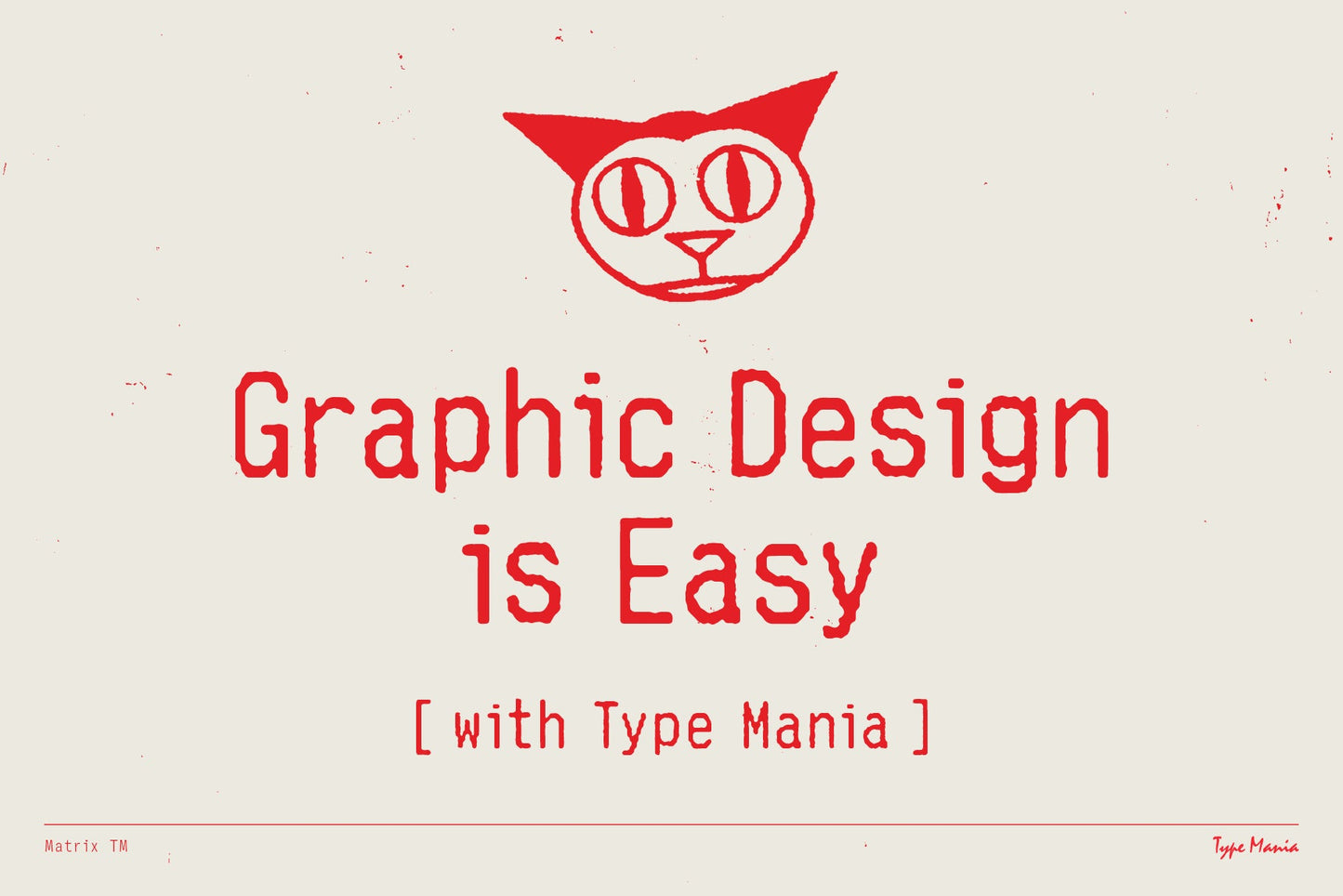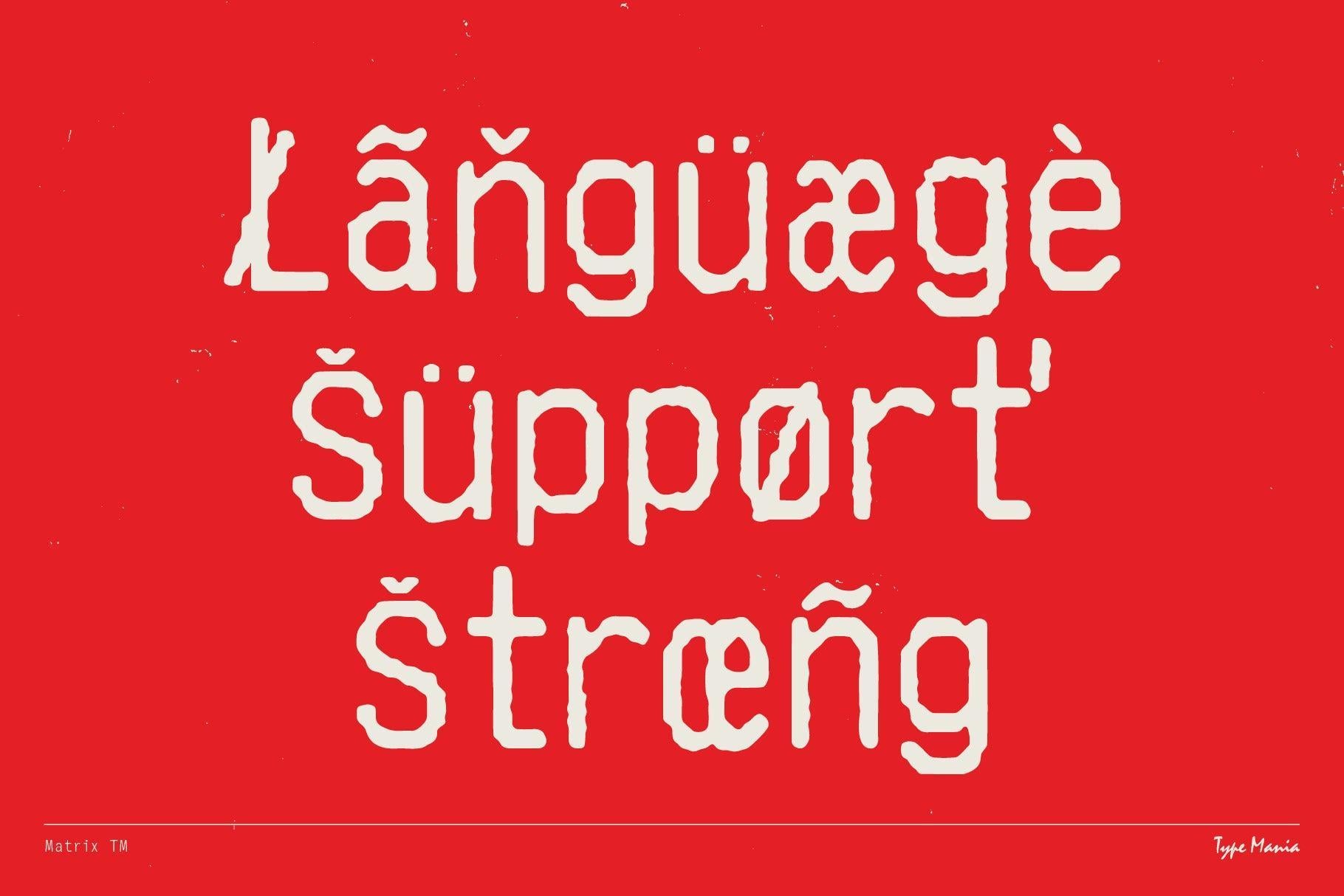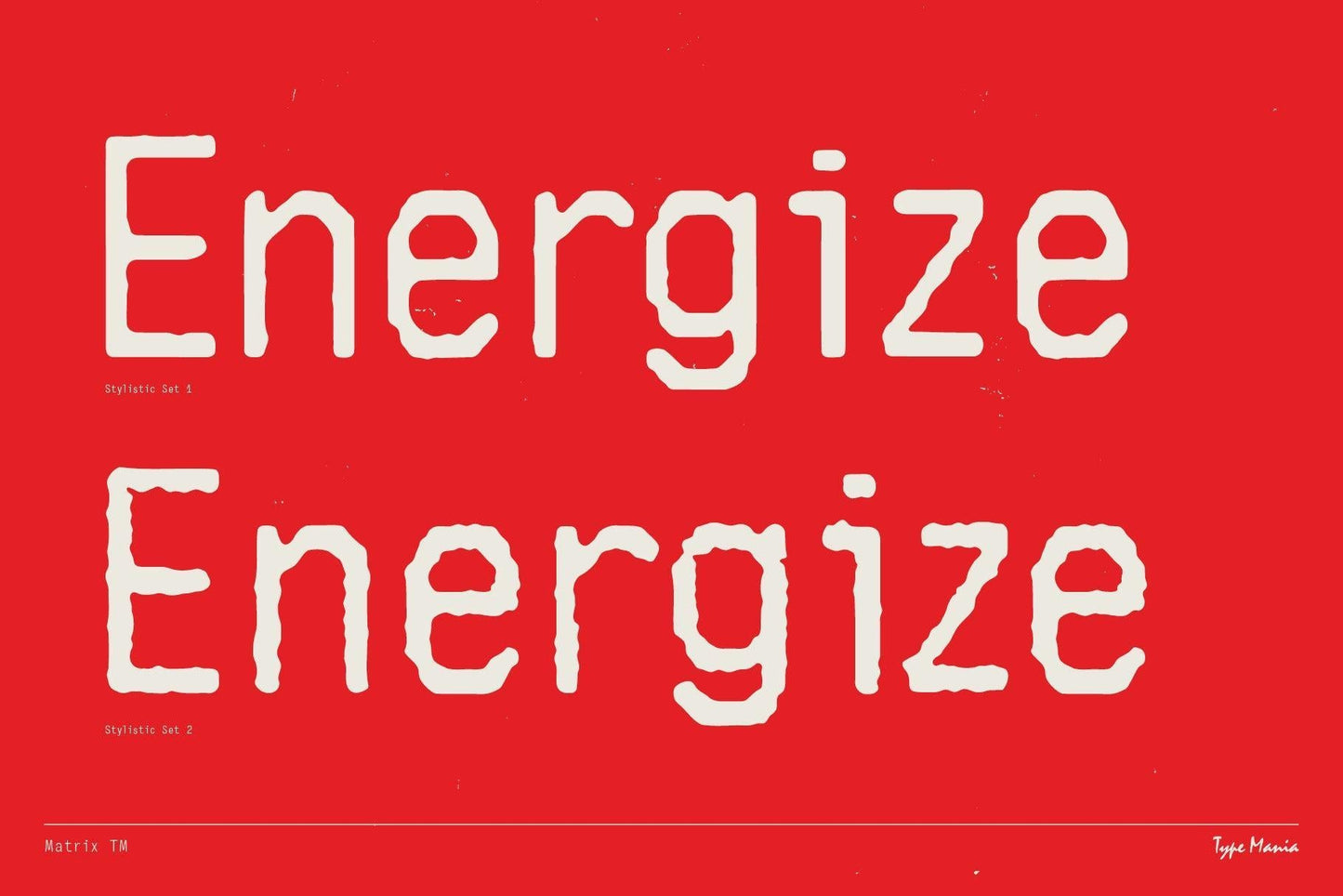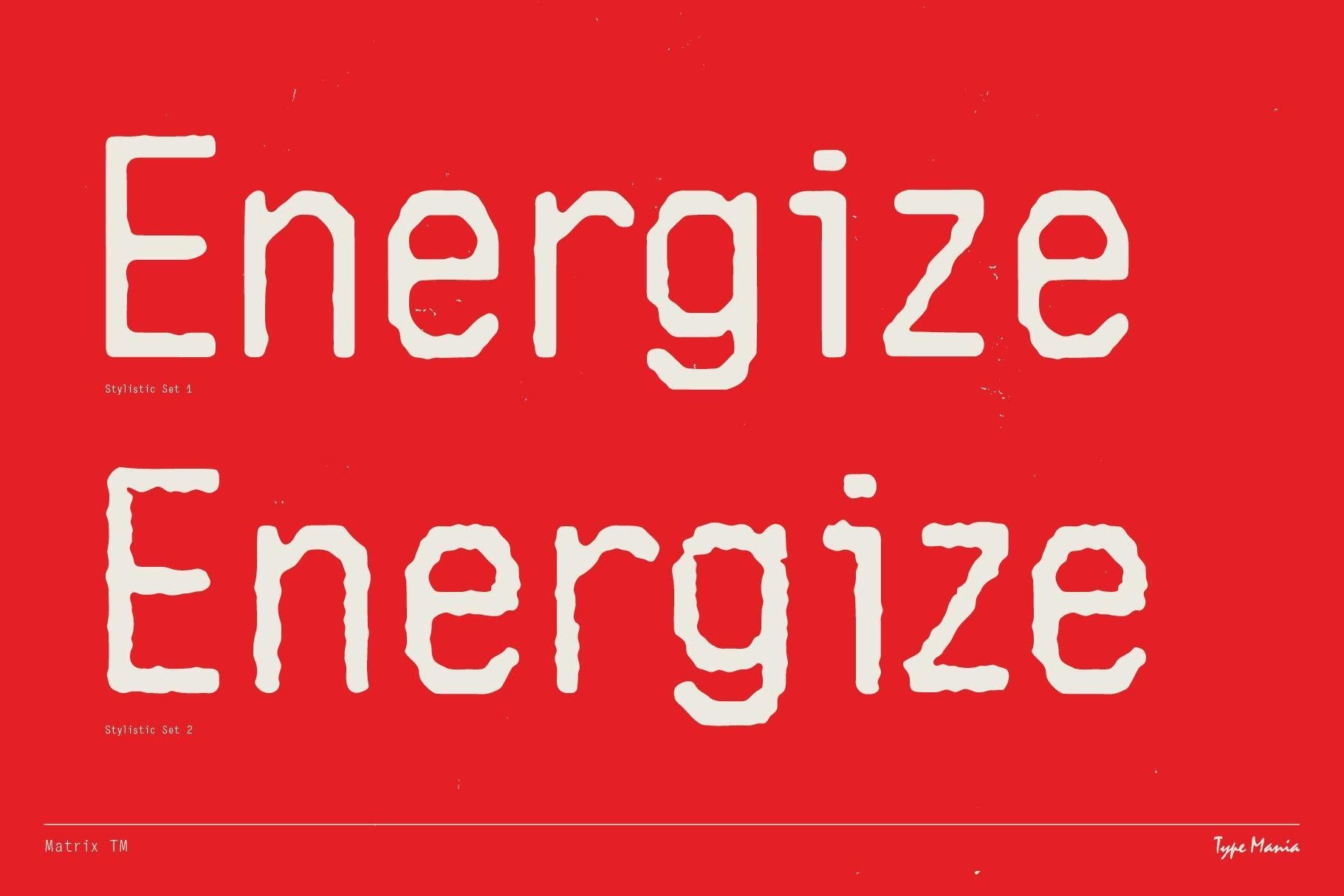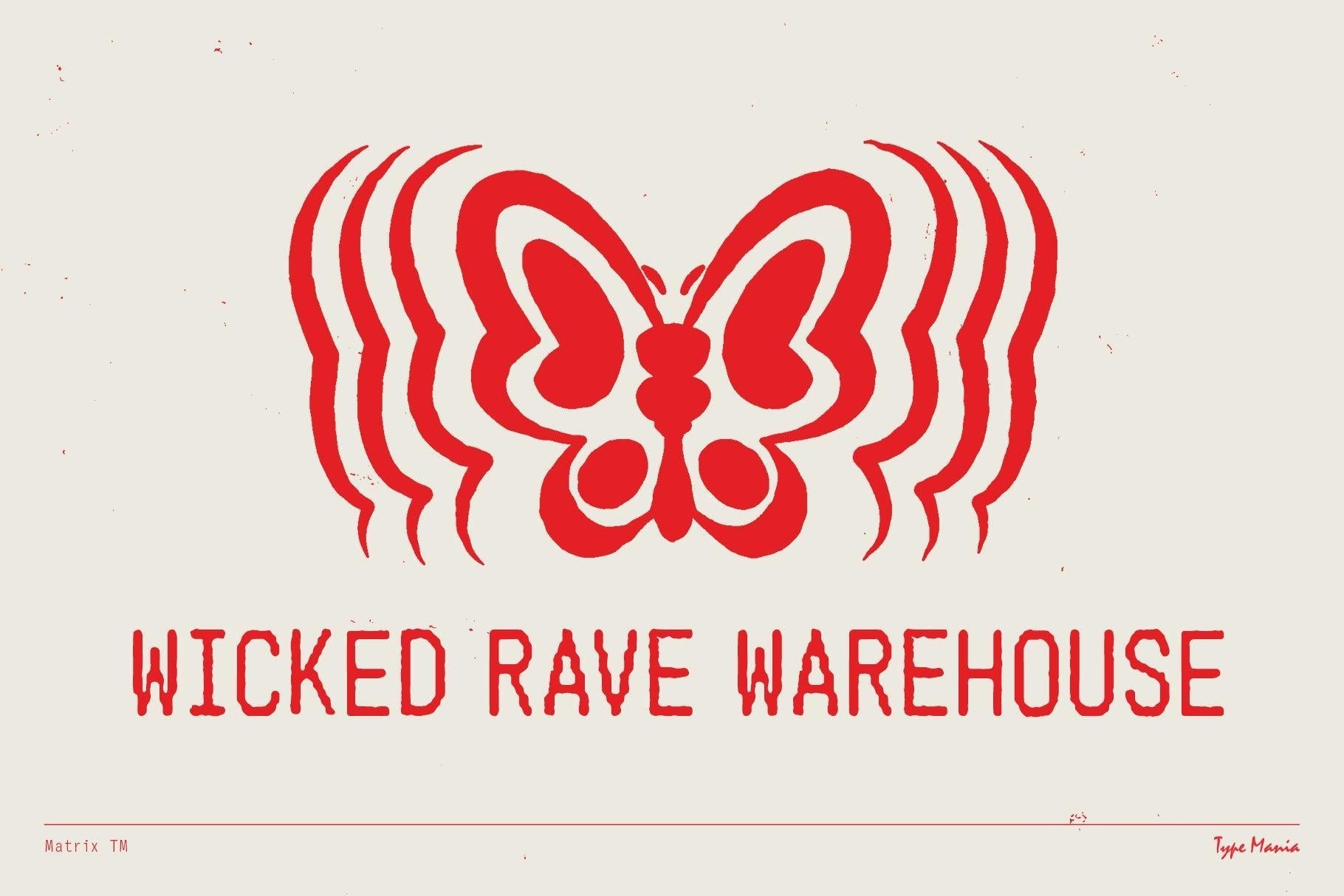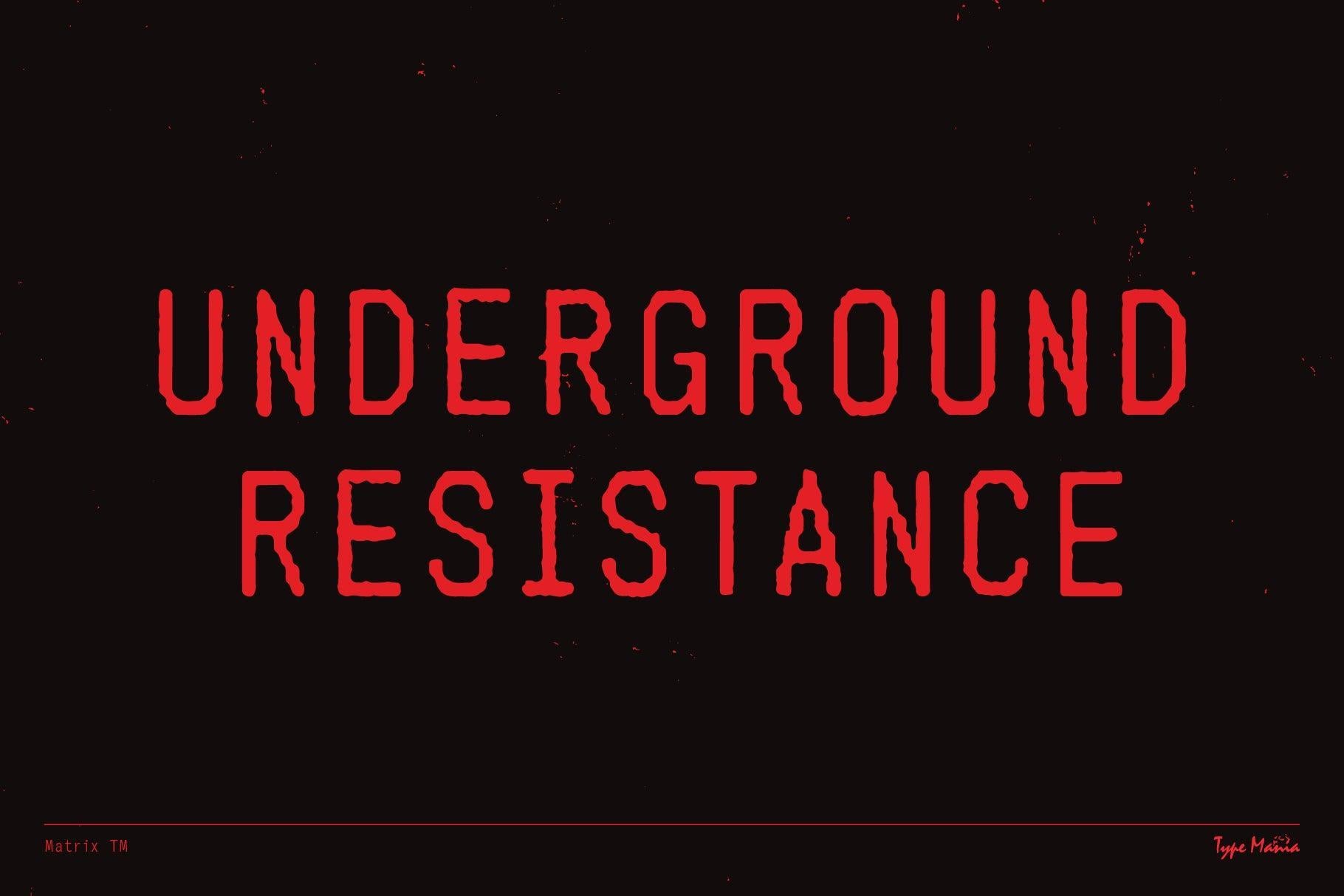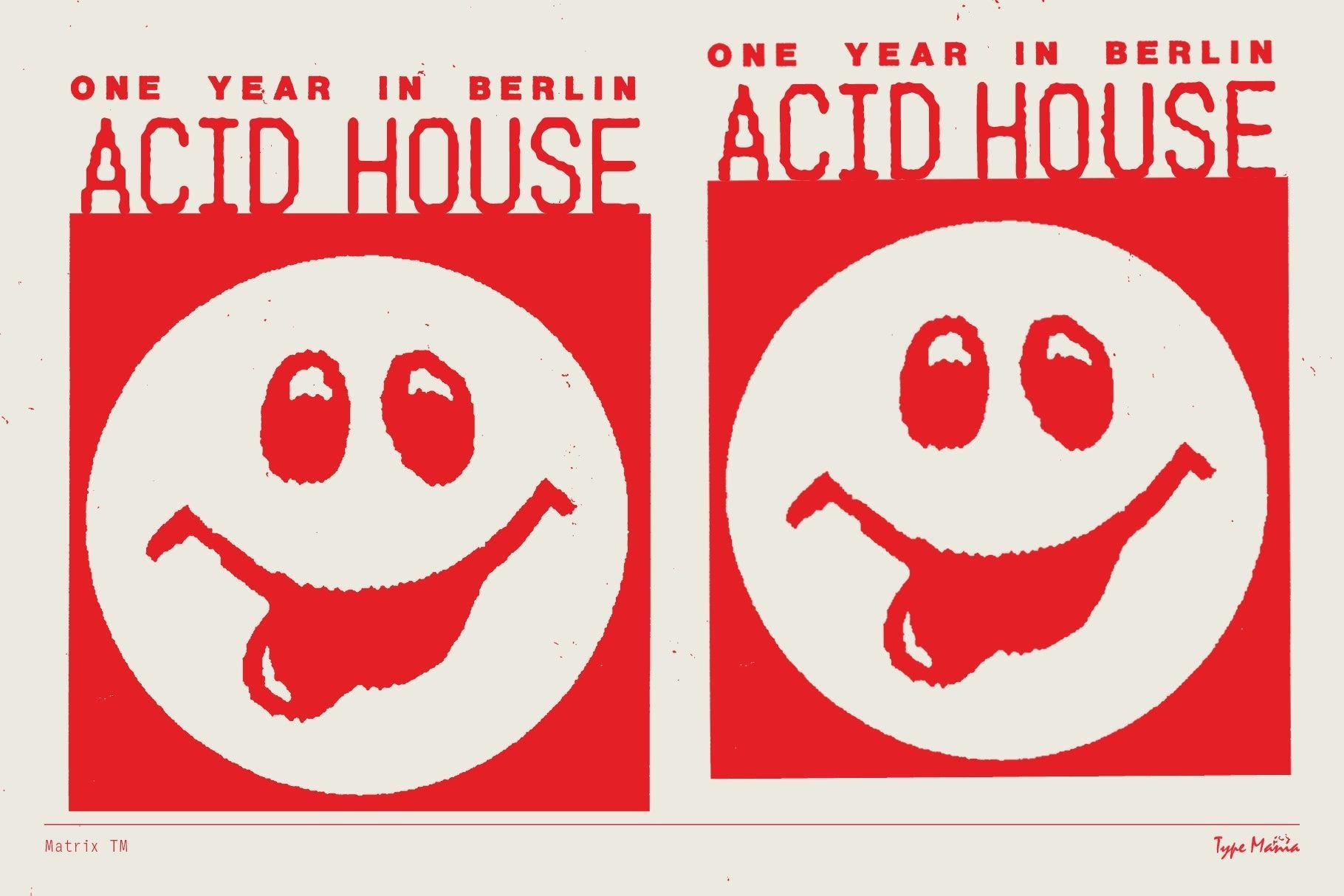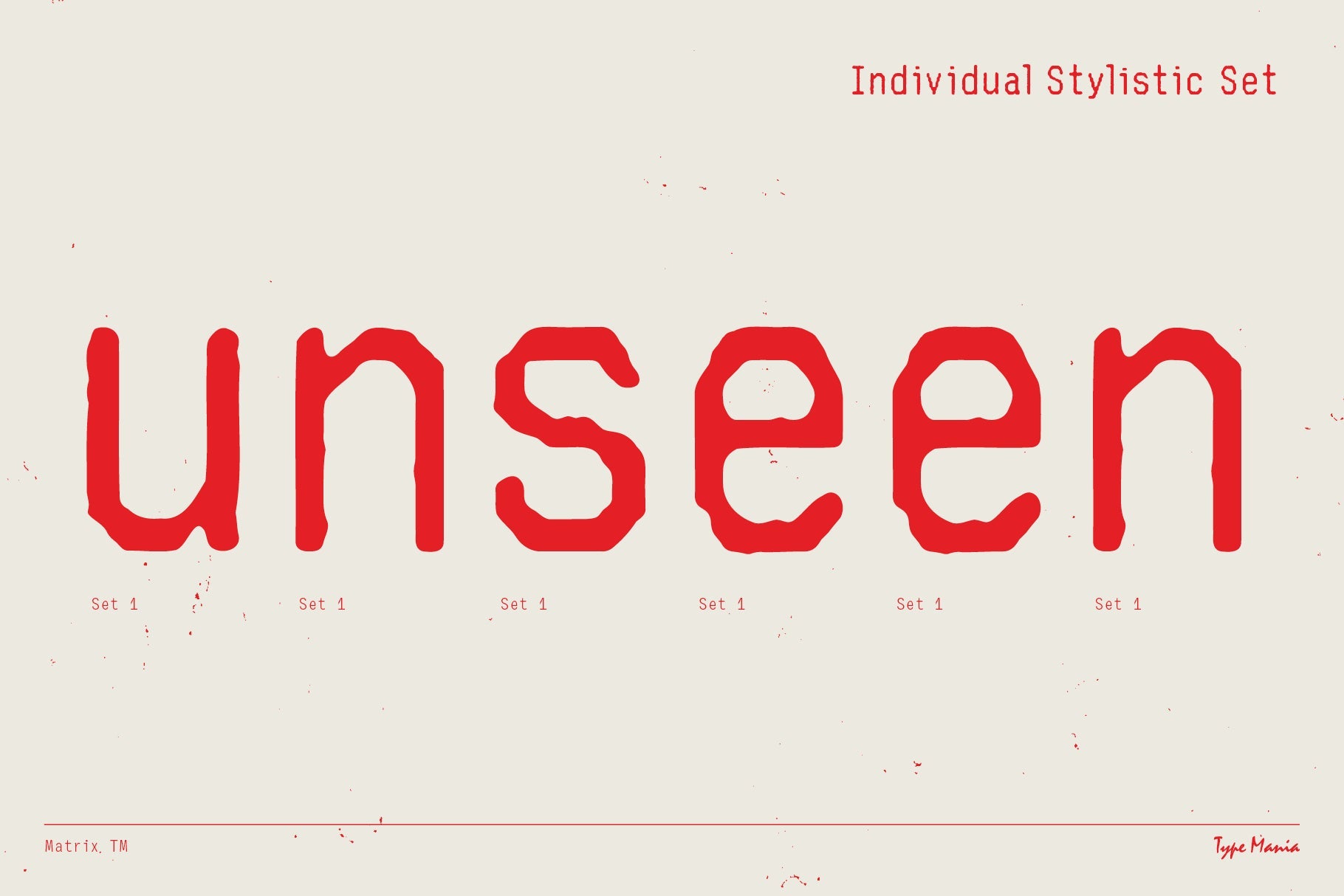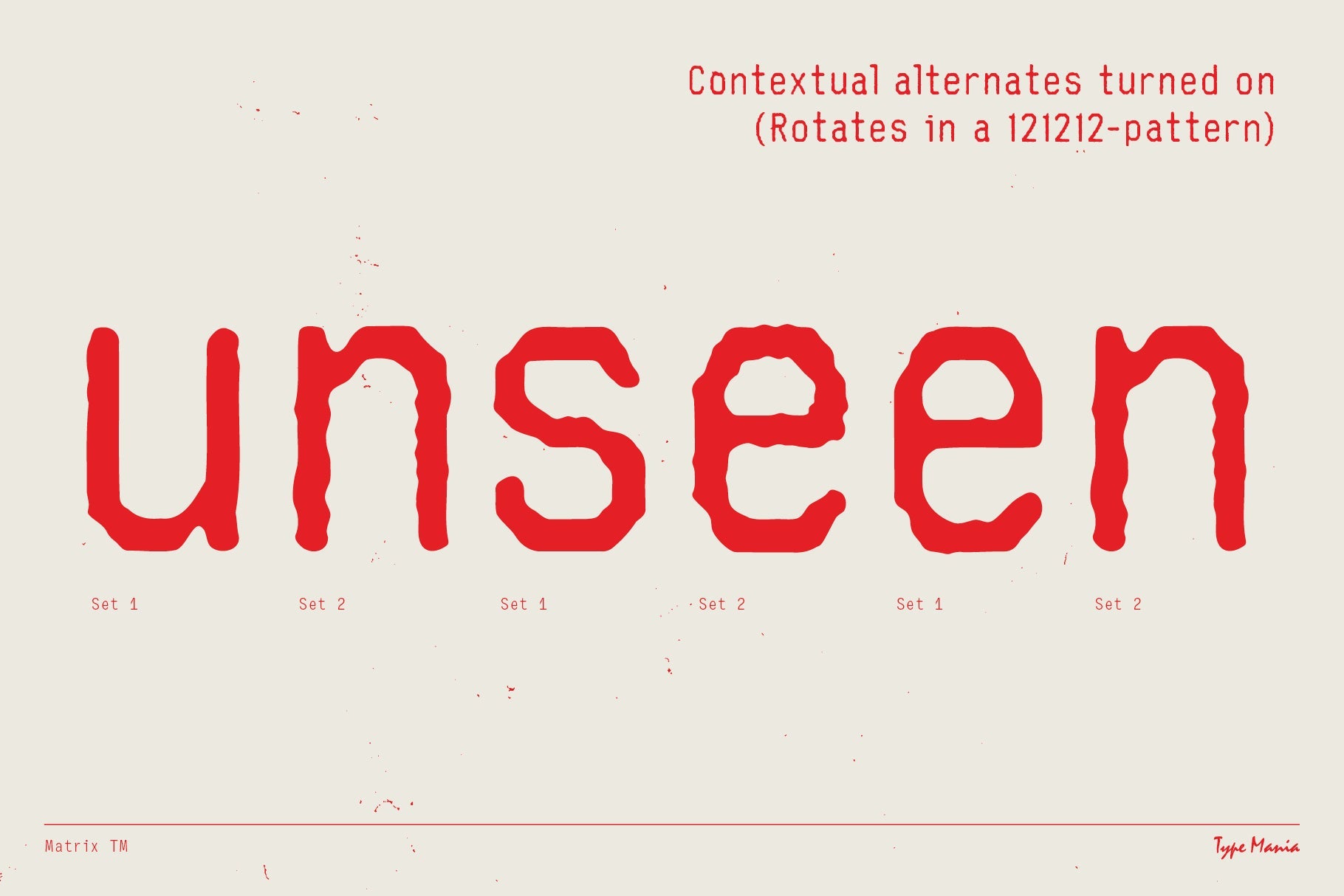
Matrix TM
Matrix TM is a display font inspired by the thermal printers. Includes two distinct stylistic sets that automatically shuffle as you type, mimicing real-world print degradation. So no manual switching, no repeated textures, as long as the Contextual Alternates is turned on 🤝
- 2 stylistic sets
- The font is programmed to automatically shift between the stylistic sets